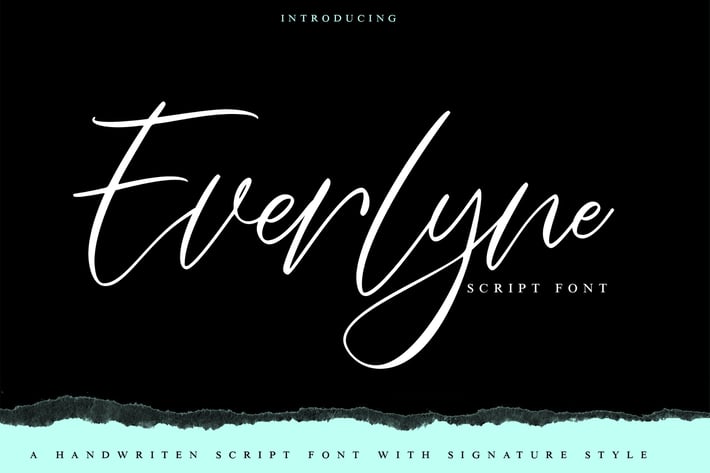
Everlyne | Handwriten Script Font
Everlyne | Handwriten Script Font with a calligraphy style, So beautiful on invitation like greeting cards, branding materials, business cards, quotes, posters, and more!